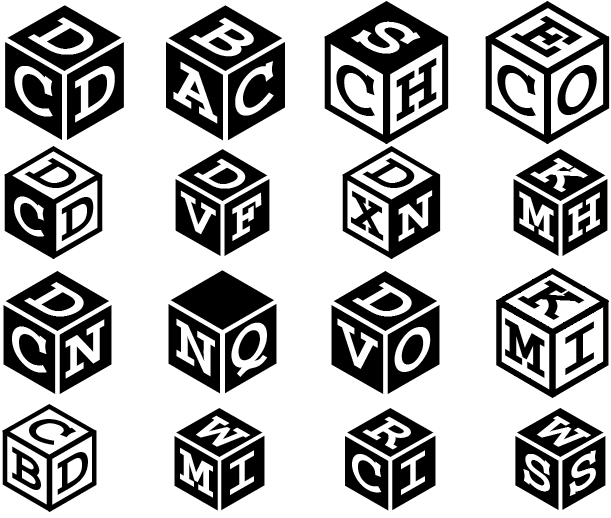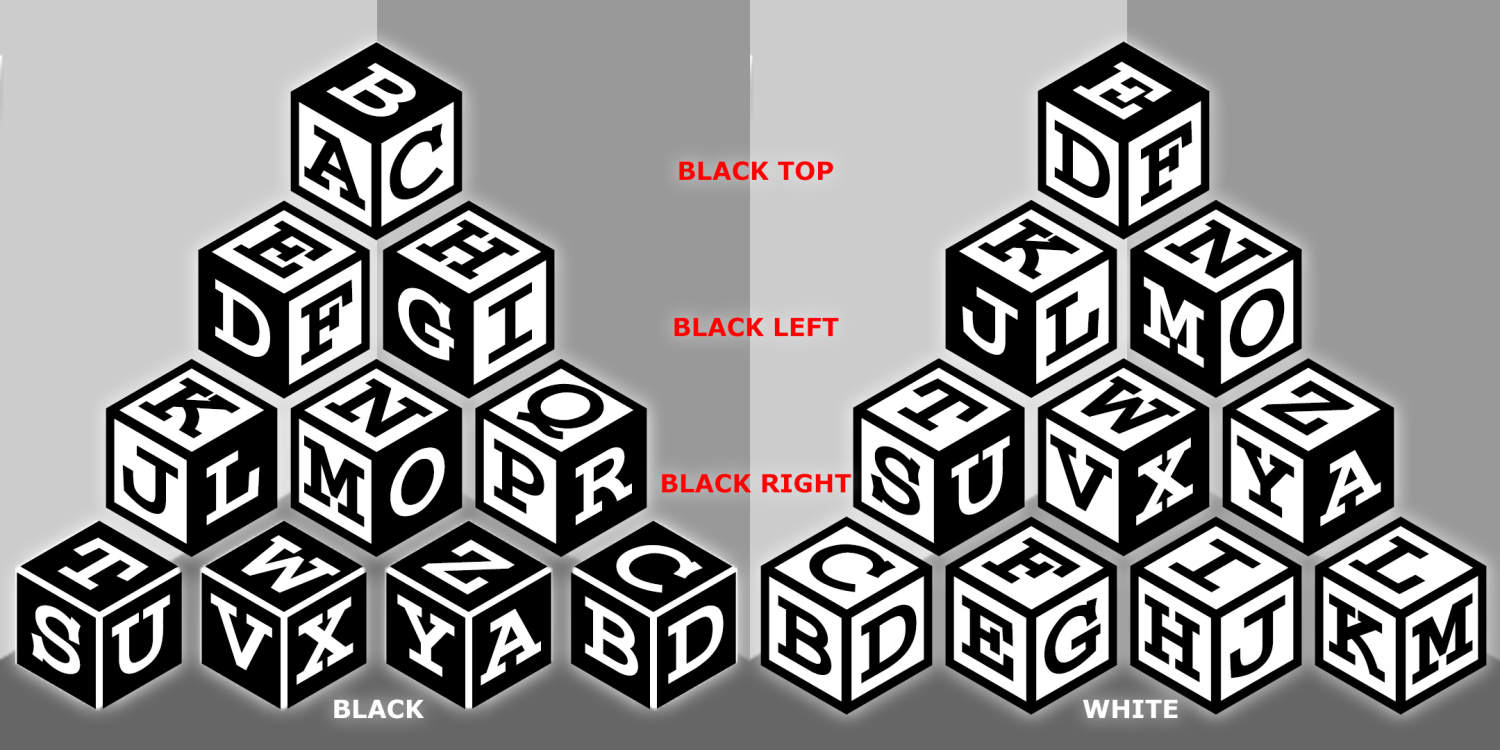
Blockograms
About Blockograms
BLOCKOGRAMS is a set of five fonts that allow you to easily create custom 3-letter cube-shaped monograms. Choose which sides are white with black letters and black with white letters.